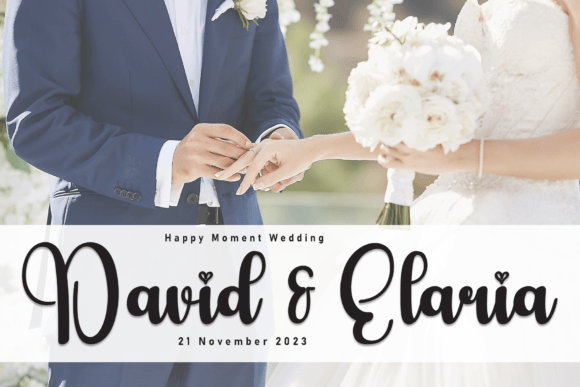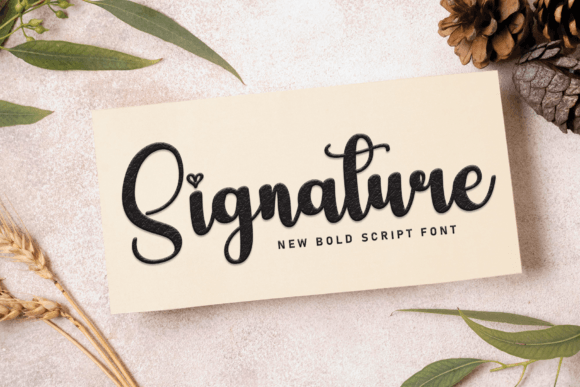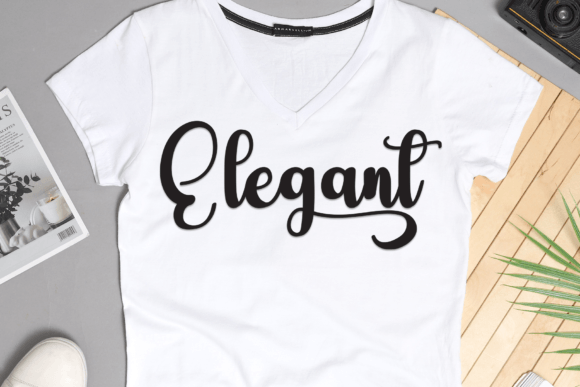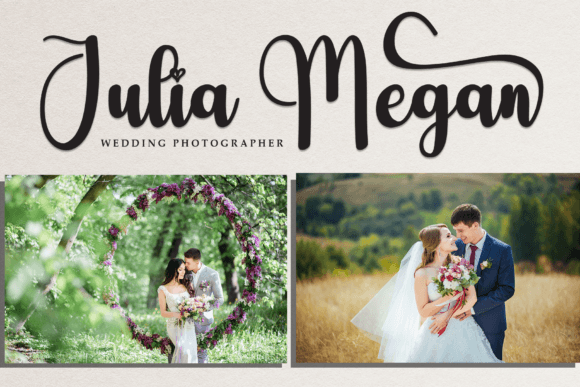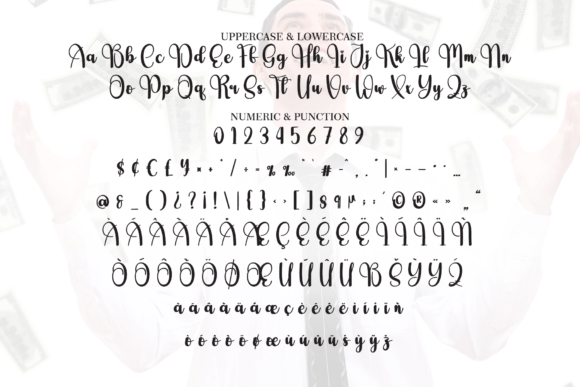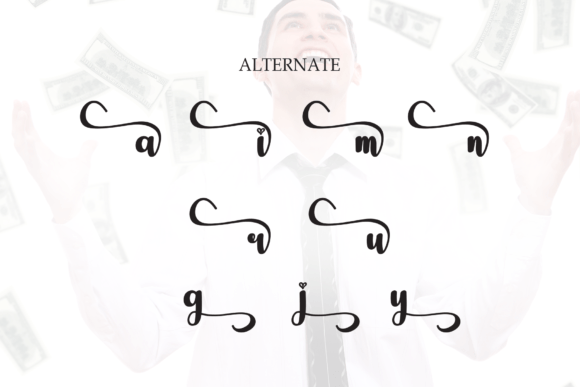
The Sweet Charm of Bilyoner Font: A Designer’s Delight
I’ll never forget the time I was working on a wedding invitation project, and my client asked for a font that was “fun, yet elegant.” I scoured the internet, tried out dozens of fonts, but nothing seemed quite right. That was until I stumbled upon Bilyoner Font. This sweet and friendly handwritten font won my heart, and I’ve been hooked ever since!
An Honest Review of Bilyoner Font
- ✨ Cute and Fun: Bilyoner Font is perfect for adding a playful touch to any design project.
- ✅ Elegant yet Informal: This font strikes the perfect balance between sophistication and approachability.
- 💕 Perfect for Wedding Designs: Bilyoner Font is ideal for writing wedding invitations, cards, or any other design that requires a romantic and whimsical feel.
- 🎨 Versatile: This font can be used for a wide range of design projects, from crafting and scrapbooking to digital graphics and branding.
While Bilyoner Font is an amazing addition to any design project, there are a few things to keep in mind:
- 🤔 Limited Character Set: Bilyoner Font may not have an extensive character set, which can limit its use in certain projects.
- ⚠️ Not Suitable for Body Text: Due to its playful and cursive nature, Bilyoner Font may not be the best choice for body text or lengthy paragraphs.
The Story Behind Bilyoner Font
Bilyoner Font was designed with love and care by a talented type designer who wanted to create a font that would bring joy and whimsy to design projects. Inspired by traditional handwriting and calligraphy, Bilyoner Font is a unique and charming addition to any design.
Q: What is Bilyoner Font best used for?
A: Bilyoner Font is perfect for designs that require a playful and whimsical touch, such as wedding invitations, cards, and creative projects.
Q: Is Bilyoner Font suitable for body text?
A: No, Bilyoner Font is not recommended for body text due to its playful and cursive nature. It’s best used for headings, titles, and short paragraphs.